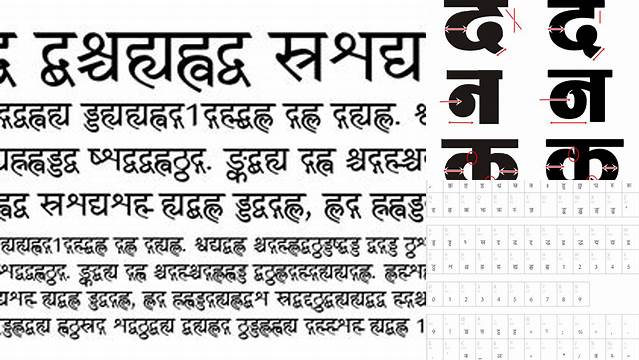
Bhaskar Bold Font: Free Download & Usage Guide
Hey guys! Looking to spice up your designs with a bold and stylish font? You've come to the right place! We're diving deep into the world of Bhaskar Bold, a fantastic font that can add a touch of elegance and strength to any project. This guide will walk you through everything you need to know, from where to find a free download to how to use it effectively. So, let’s get started!
1. What is Bhaskar Bold Font?
Before we jump into the download process, let's understand what makes Bhaskar Bold so special. This font is known for its strong, clear lines and modern aesthetic. It's a versatile typeface that works well in various design contexts, from headlines and logos to body text. The bold weight gives it extra emphasis, making it perfect for grabbing attention. Whether you’re working on a website, a poster, or a presentation, Bhaskar Bold can help you make a statement. It’s designed to be both readable and visually appealing, a combination that’s essential for effective communication. The font's unique characteristics stem from its carefully crafted letterforms, which balance elegance with a contemporary feel. Using Bhaskar Bold can elevate your designs, giving them a professional and polished look. Its versatility means it pairs well with other fonts, allowing for creative and dynamic typography. So, if you're looking for a font that can convey confidence and style, Bhaskar Bold is an excellent choice. It's a font that commands attention without being overly aggressive, making it suitable for a wide range of projects. Now that we know what makes it great, let's find out where you can snag a copy!